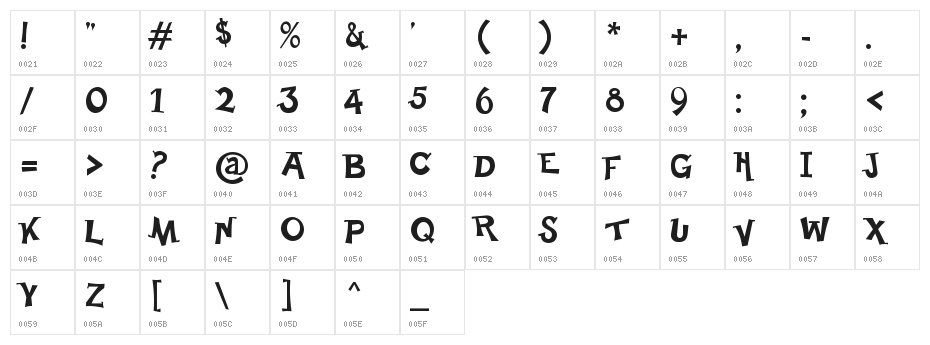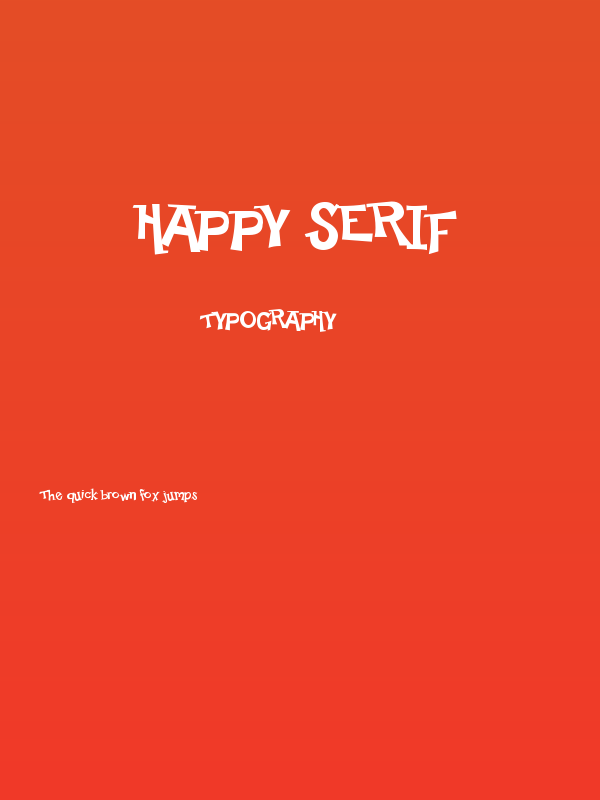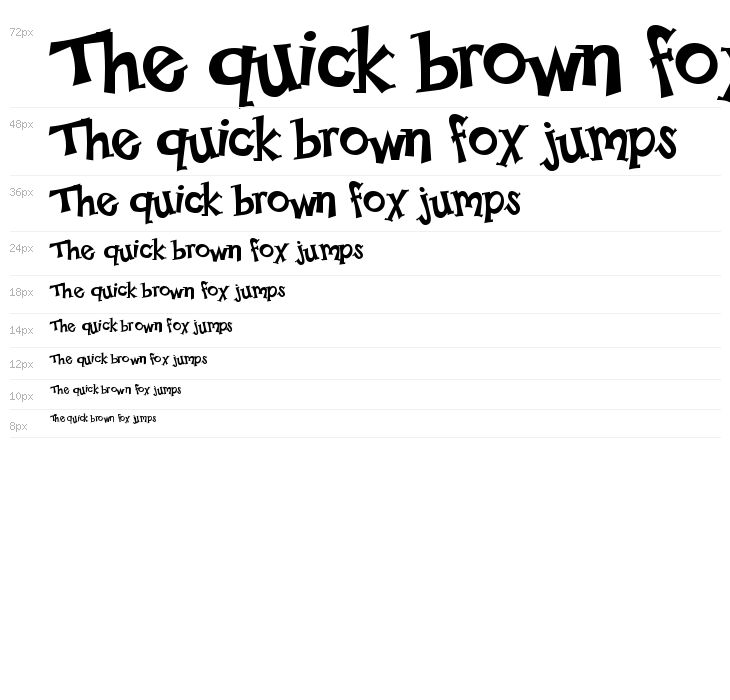
Happy Serif Font
Happy Serif Description
This font features a playful and whimsical design, characterized by its bold and uneven strokes. The letters have a dynamic and lively appearance, with exaggerated curves and angles that give them a unique personality. The uppercase and lowercase letters maintain a consistent style, while the numbers and special characters complement the overall aesthetic. The font's distinctive style makes it stand out, with each character having its own flair, yet maintaining a cohesive look across the set. The playful nature of the font is ideal for projects that require a fun and engaging visual element.
Overall StylePlayful
Proposed ProjectsIdeal for children's books, playful branding, party invitations, and creative posters.